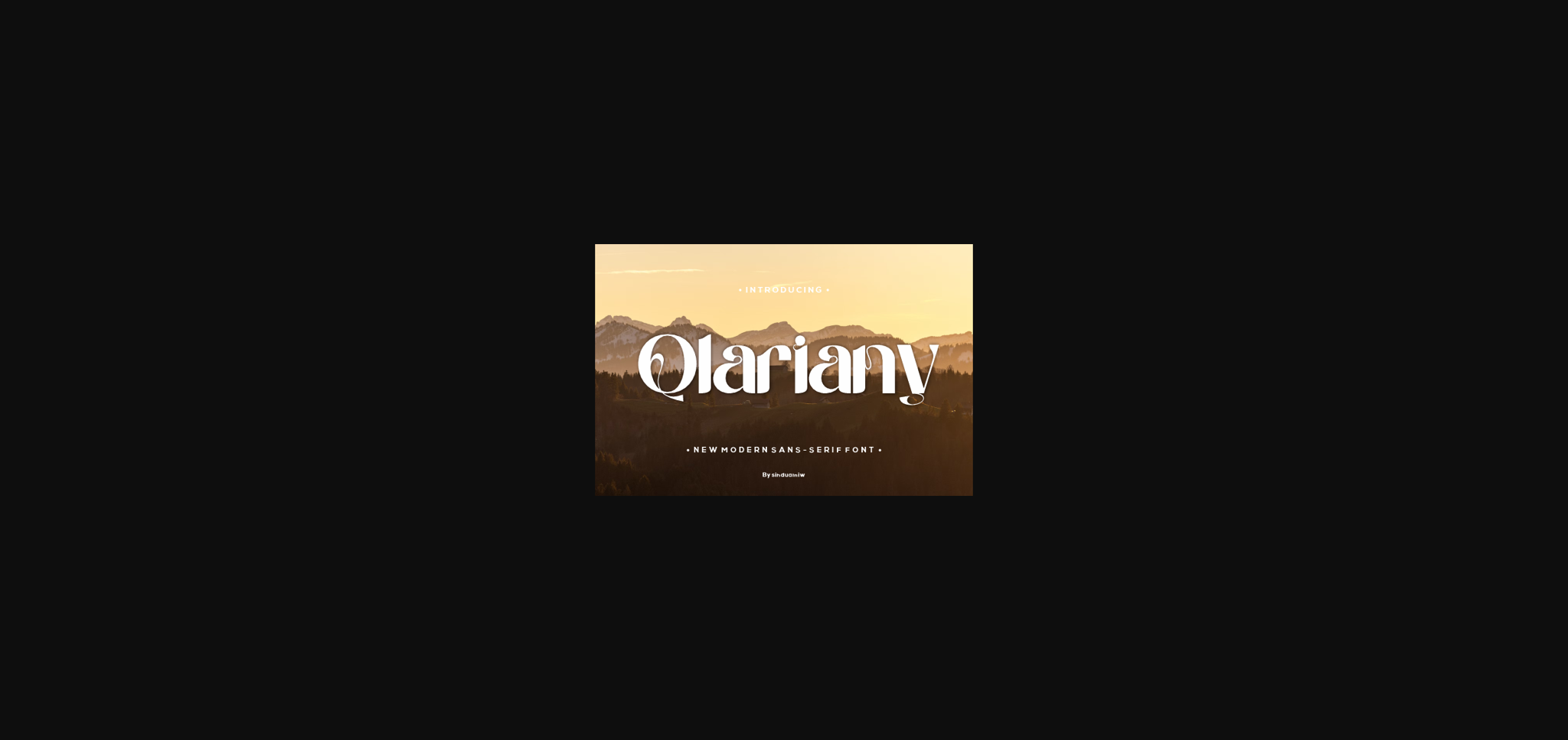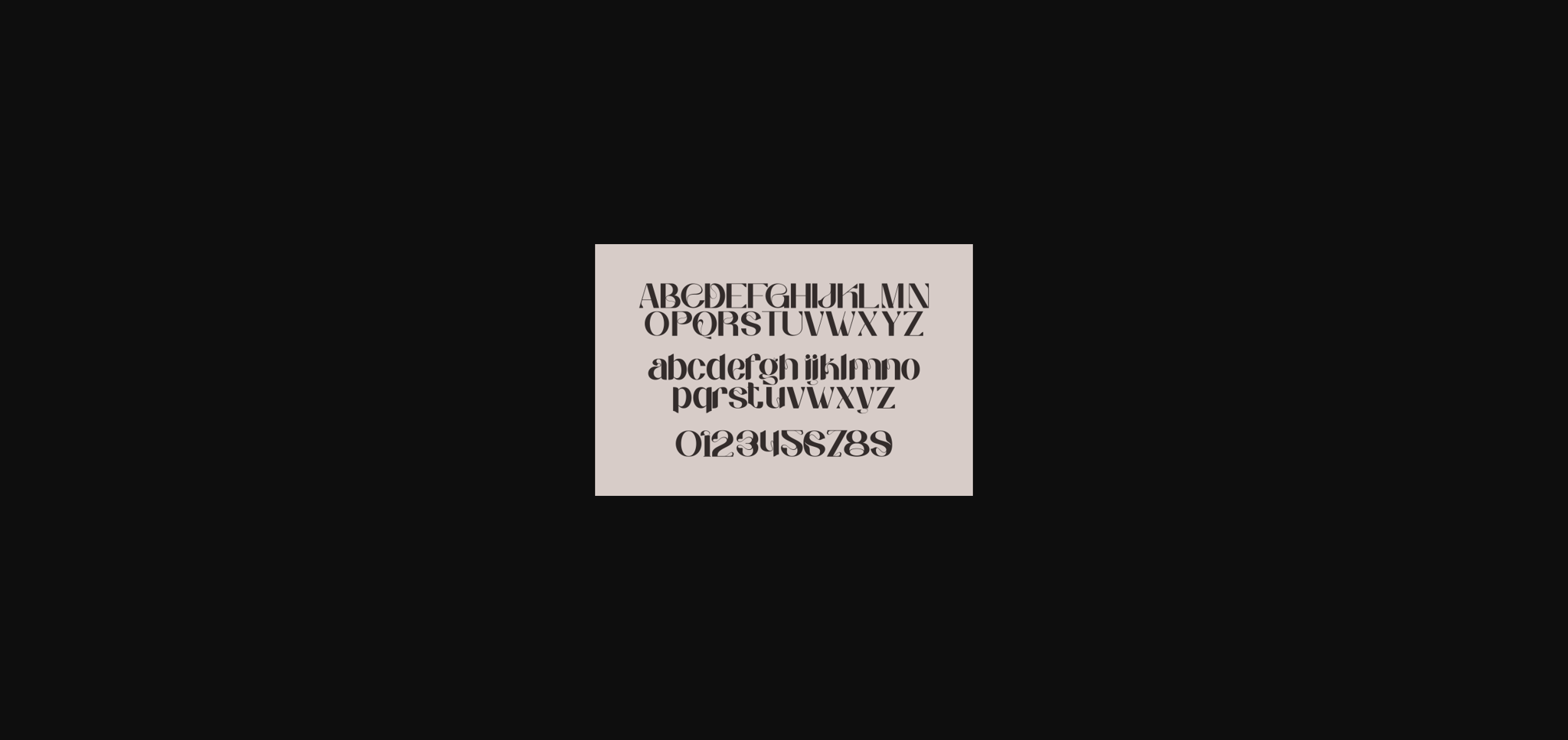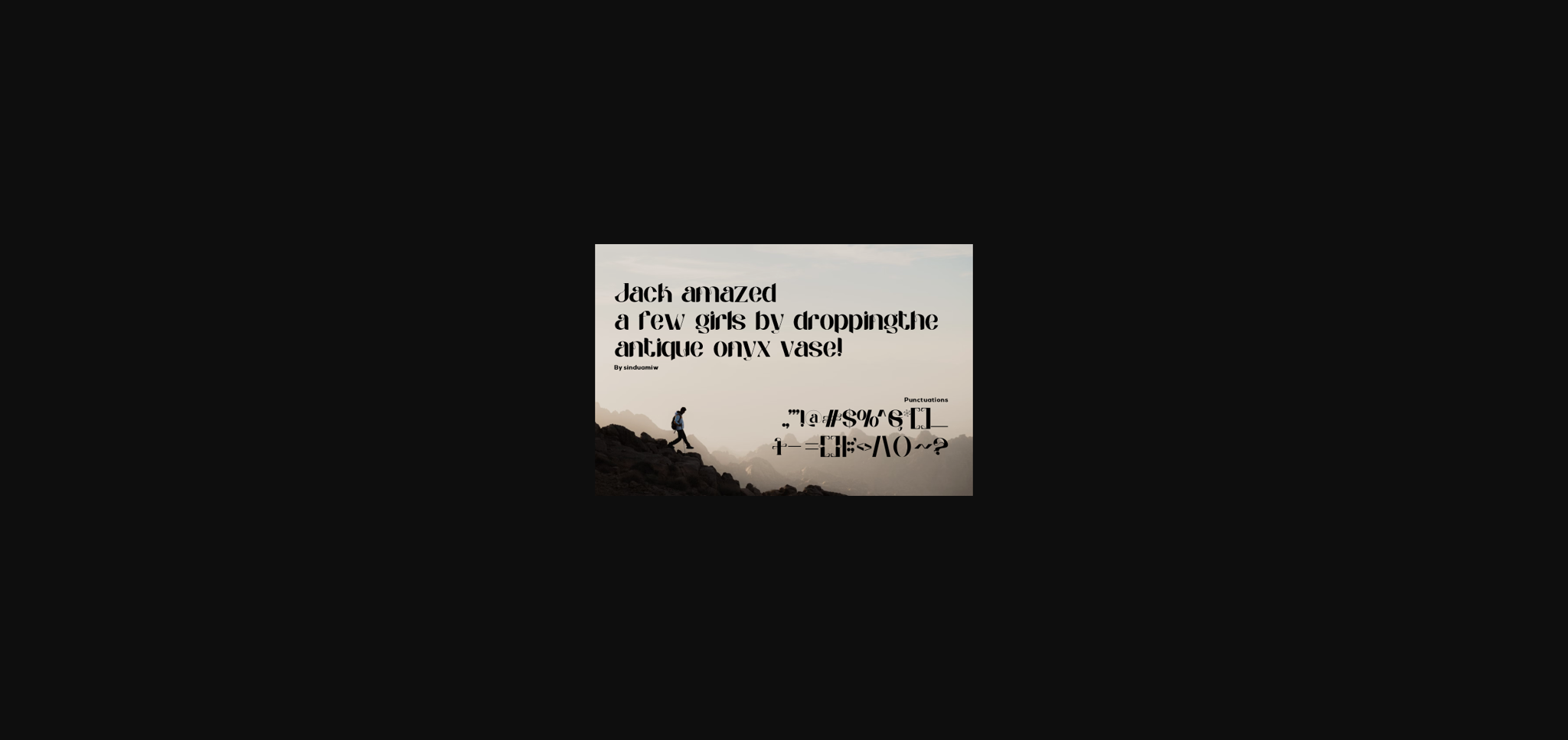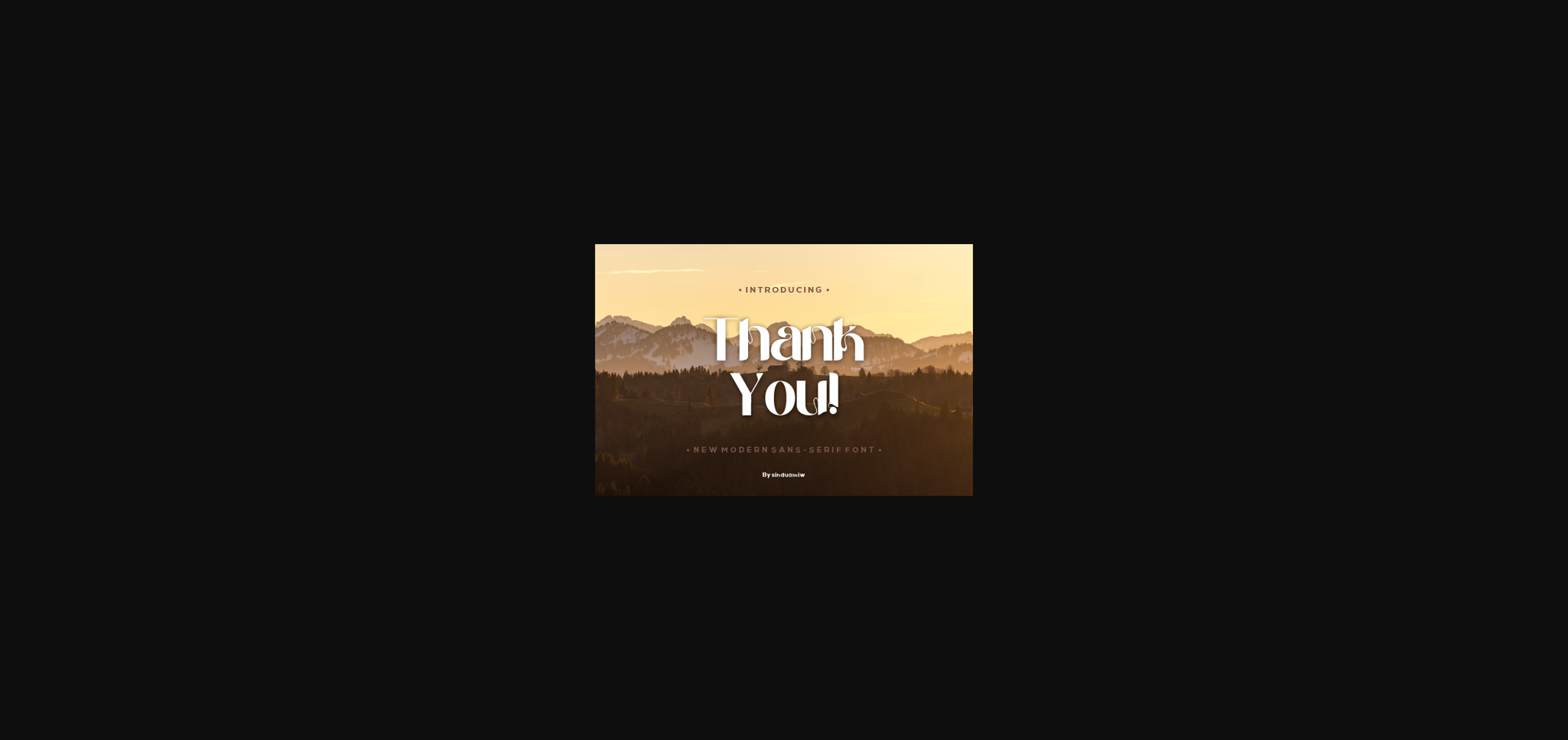
About Qlariany Font
Qlariany is an elegant and bold sans serif font. Fall in love with its incredibly versatile style and use it to create gorgeous wedding invitations, beautiful stationary art, eye-catching social media posts, and much more!